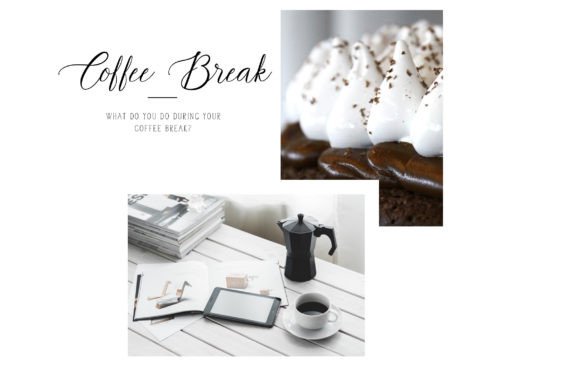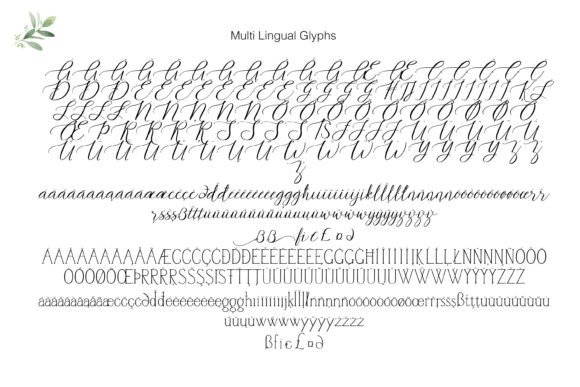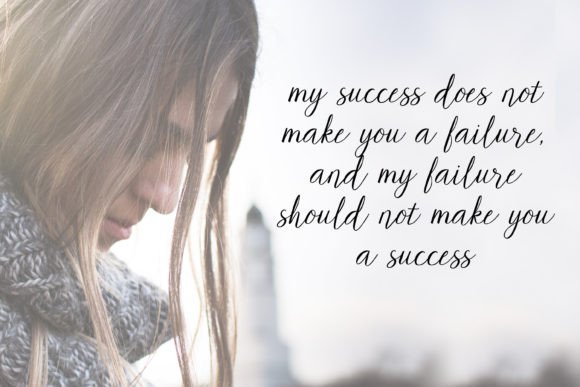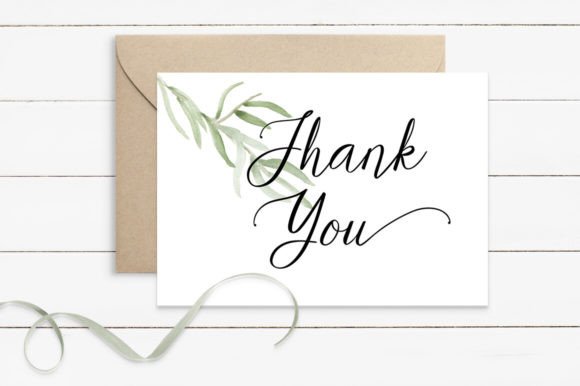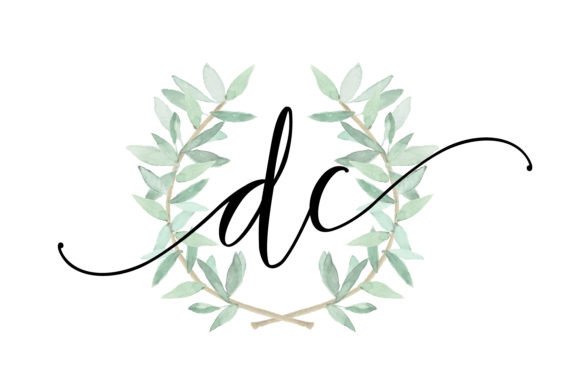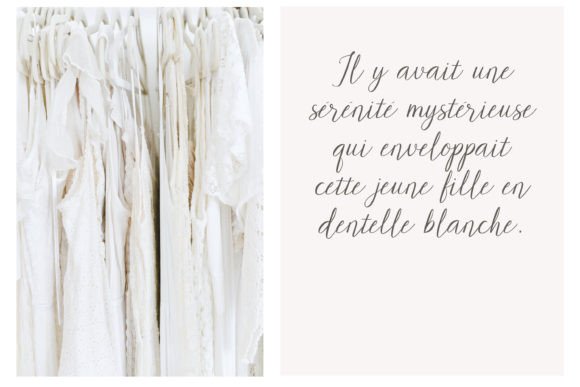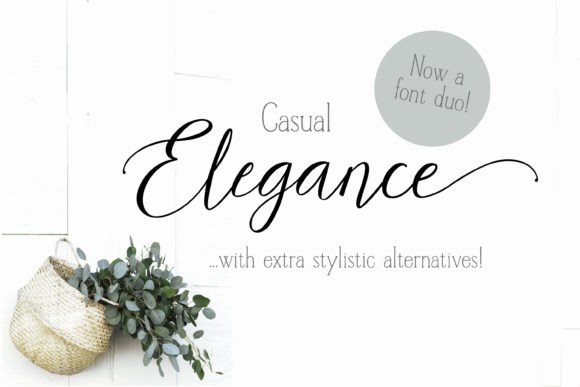
The Elusive Perfect Font: My Encounter with Casual Elegance
Ah, the quest for the perfect font – a journey familiar to many designers, crafters, and creative hobbyists. I recall a particularly frustrating project where I was tasked with designing an elegant invitation for a client’s wedding. The catch? The font had to be stylish, yet not too ornate; elegant, yet not too formal. After hours of scouring font libraries and testing various combinations, I stumbled upon Casual Elegance – a stylish display script font that would become my new best friend. ✨
A Closer Look: What I Love About Casual Elegance
So, what makes Casual Elegance so special? Here are a few things that caught my attention:
- ✨ Unique Alternative Characters: Casual Elegance boasts an impressive array of special alternative characters that add a touch of personality to any design.
- ✅ Extra Ligatures: The font’s ligatures are carefully crafted to create a seamless, elegant flow – perfect for invitations, signs, and logos.
- ✅ Thicker yet Elegant: Casual Elegance strikes the perfect balance between thickness and elegance, making it ideal for use on invitations, cards, and other graphics.
The Not-So-Perfect: A Few Quirks
While Casual Elegance is undoubtedly a stunning font, it’s not without its limitations. Here are a few things to keep in mind:
- 🤔 Pairing Challenges: Casual Elegance’s unique character set can make it challenging to pair with other fonts. Experiment with different combinations to find the perfect match.
The Story Behind Casual Elegance
While the true story behind Casual Elegance remains a mystery, it’s easy to imagine a designer sitting at their desk, pouring over font styles and character sets, driven by a passion for creating something both elegant and approachable. Perhaps they were inspired by classic typography, modern calligraphy, or even street art – whatever the inspiration, Casual Elegance is a testament to the power of typography in design.
| What is Casual Elegance best used for? | Signs, invitations, logos, and graphics – anywhere you need a touch of elegance and sophistication. |
| Is Casual Elegance a versatile font? | Absolutely! Casual Elegance’s range of alternative characters, ligatures, and stylistic alternates make it adaptable to various design projects. |